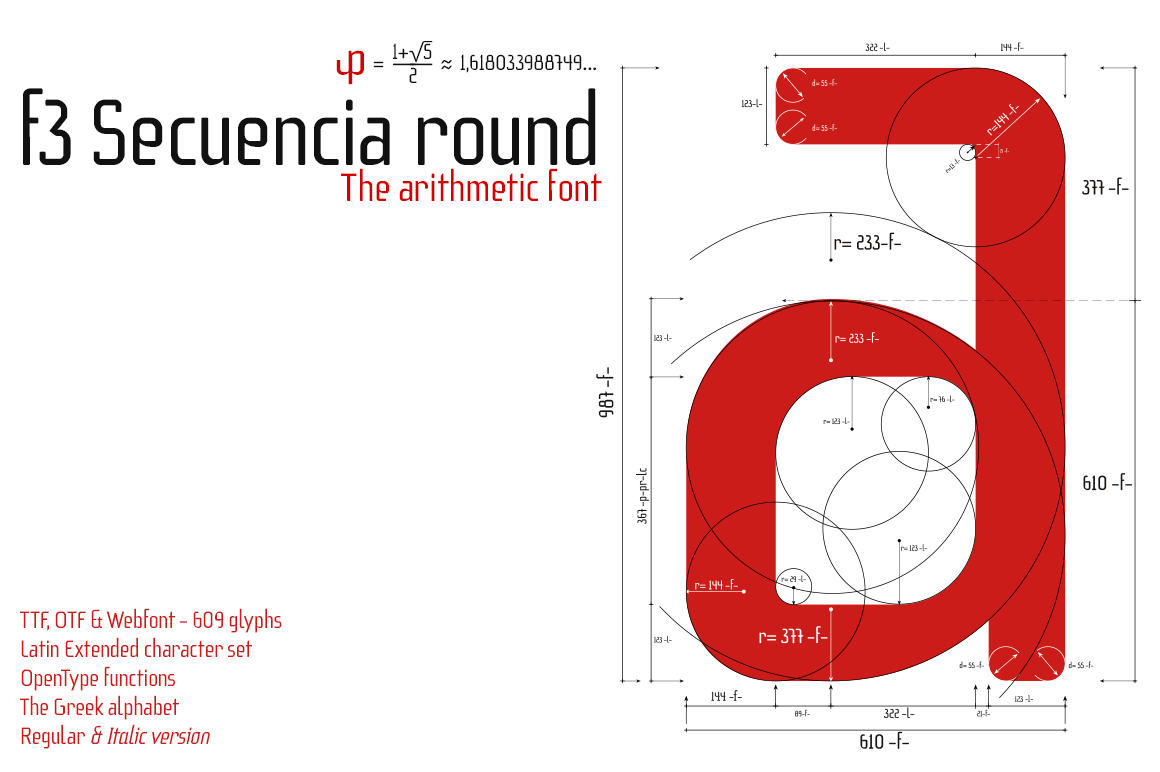
f3 Secuencia Round font
This is the third typeface belonging to the series of fonts drawn with golden proportions with regular and italic version
- 609 glyphs Latin Extended + Greek
- Alternative characters
- Greek characters
- Numbers old style
- Numbers Small Caps
- Fractions
- Currencies
- Denominators
- Numerators